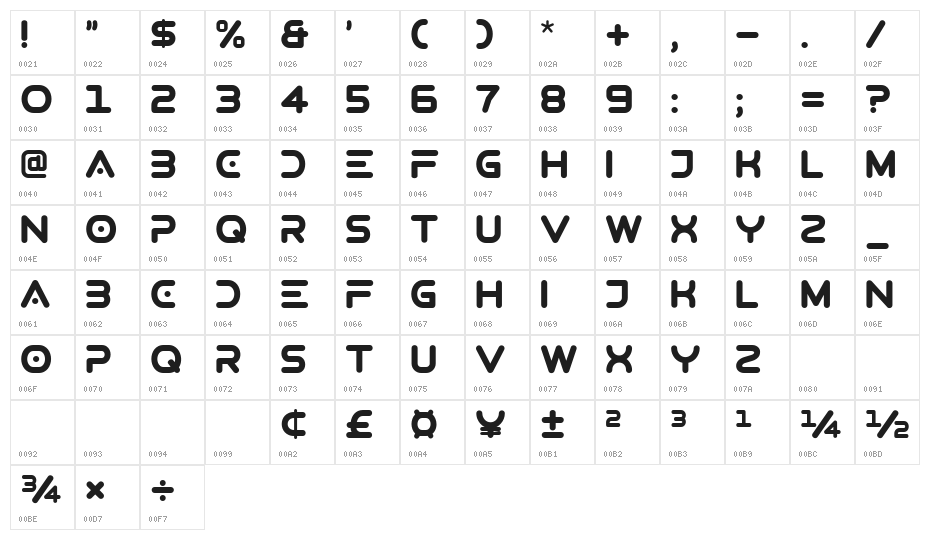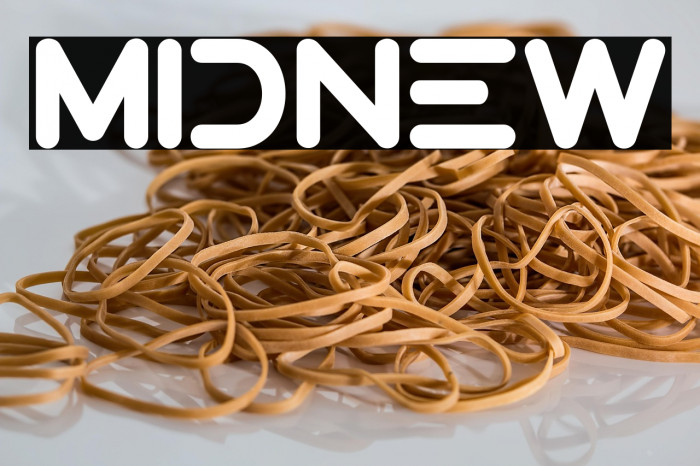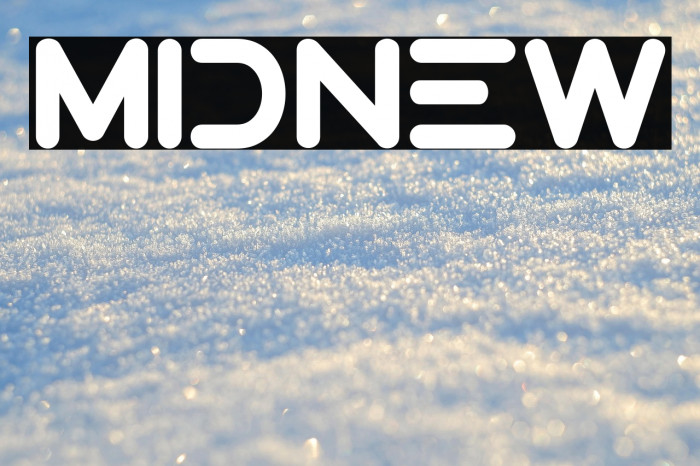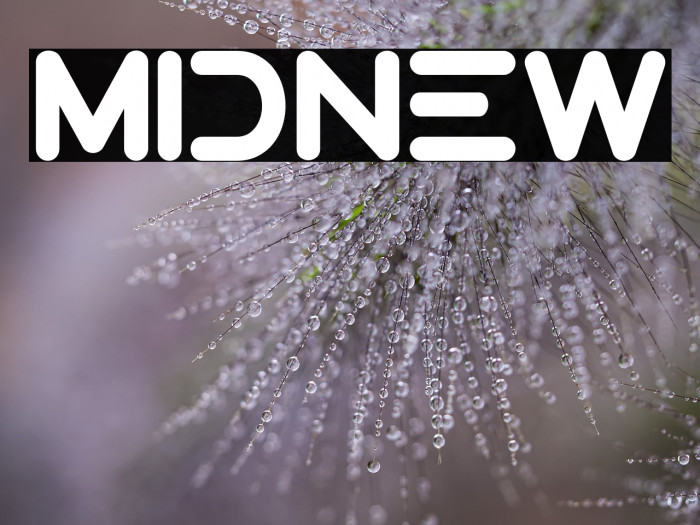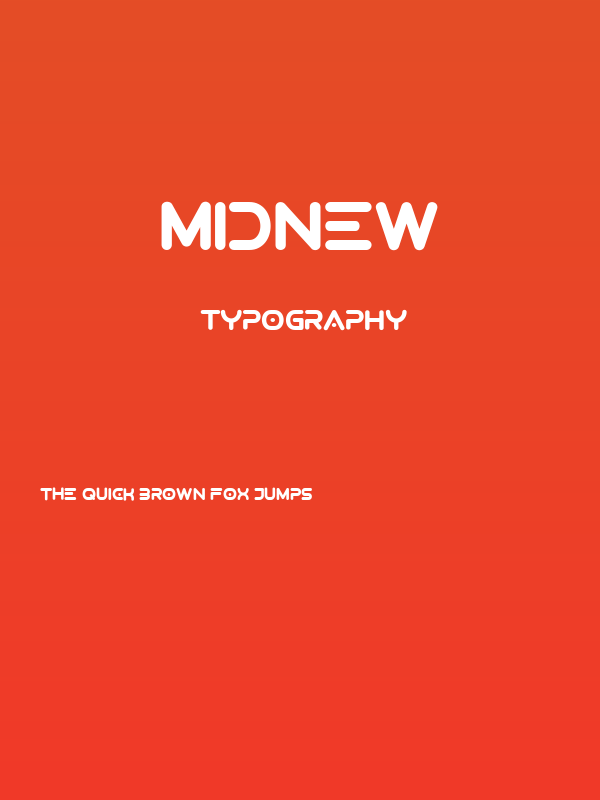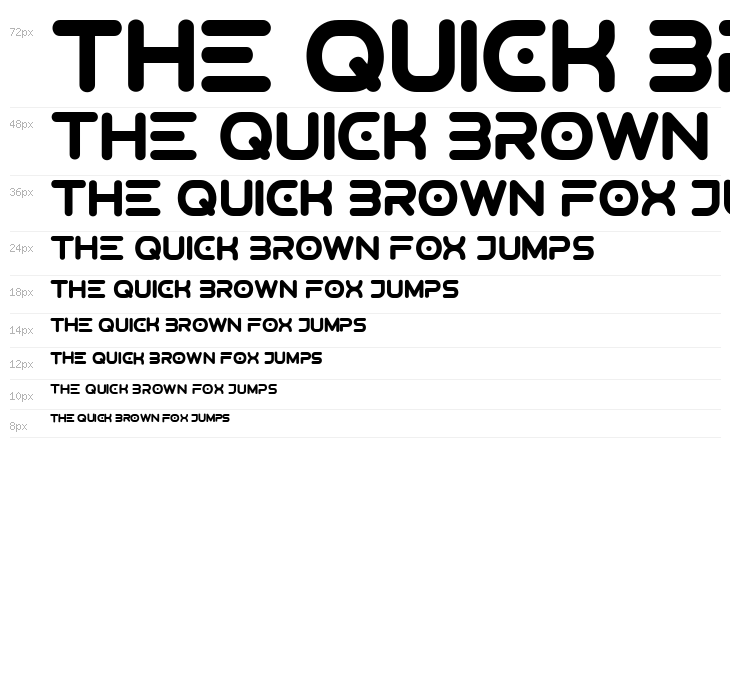
Midnew Font
Midnew Description
This font features a modern and futuristic design with rounded, geometric shapes and consistent line thickness. The characters are bold and have a unique, digital-inspired appearance, making them stand out. The uppercase and lowercase letters maintain a uniform style, with smooth curves and a slightly condensed form. The numbers and special characters follow the same design principles, ensuring a cohesive look across all elements. This font is ideal for projects that require a contemporary and tech-savvy aesthetic.
| Proposed Projects | Ideal for technology branding, digital interfaces, video game titles, and futuristic-themed posters. |